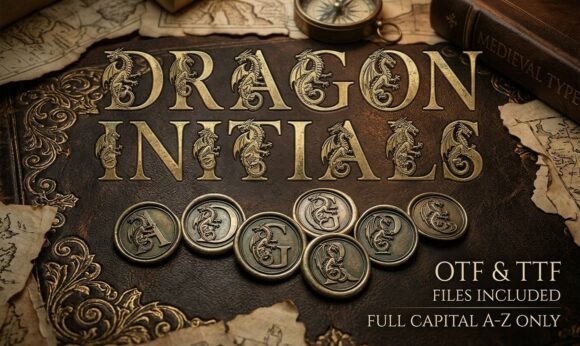
Introduction to Dragon Initials Font
Unleash the magic with Dragon Initials, a stunning and highly detailed illustrated display font.
Every single letter features a fierce, beautifully drawn mythical dragon intertwined with a classic, bold serif capital letter This specialty decorative font is designed to make a massive impact.